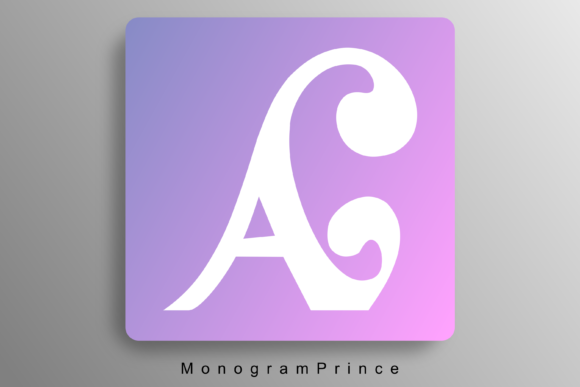
Indulge in the enchanting realm of Monogram Prince, where elegance and creativity intertwine to weave a tapestry of typographic masterpieces. This exquisite decorative font is a true gem, meticulously crafted to infuse your designs with a touch of timeless beauty.
Step into a world where your words dance with grace and allure, adorned in the regal splendor of Monogram Prince. Each letter is a delicate work of art, adorned with intricate flourishes and whimsical curves. Whether you're crafting heartfelt love letters, designing breathtaking wedding invitations, or embarking on any creative endeavor, this font will elevate your designs to new heights of sophistication.
Allow Monogram Prince to guide you on a journey of self-expression. Its versatile nature empowers you to infuse your creations with a touch of whimsy, a hint of romance, or a dash of undeniable elegance. From personal projects to professional endeavors, Monogram Prince effortlessly adapts to your vision, ensuring that your designs leave a lasting impression.
Embrace the power of Monogram Prince and unlock a world of endless creative possibilities. Let its delicate charm captivate your audience, drawing them into the captivating tapestry of your words and designs. With Monogram Prince, you're not just downloading a font; you're investing in a timeless tool that will empower you to create designs that are both beautiful and unforgettable.
Don't deny yourself the pleasure of experiencing the magic of Monogram Prince. Immerse yourself in its enchanting world today and transform your designs into masterpieces that will leave an enduring legacy.